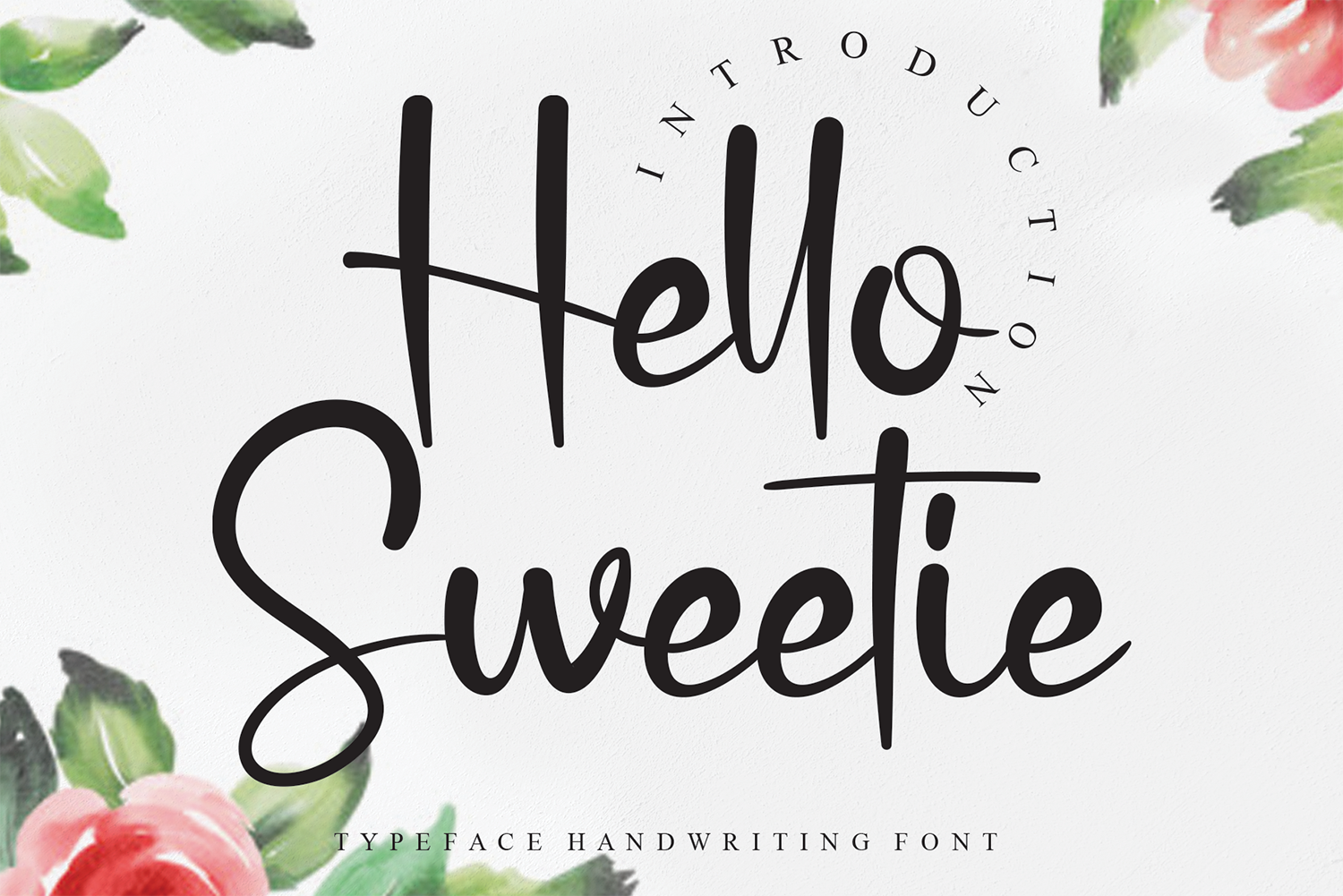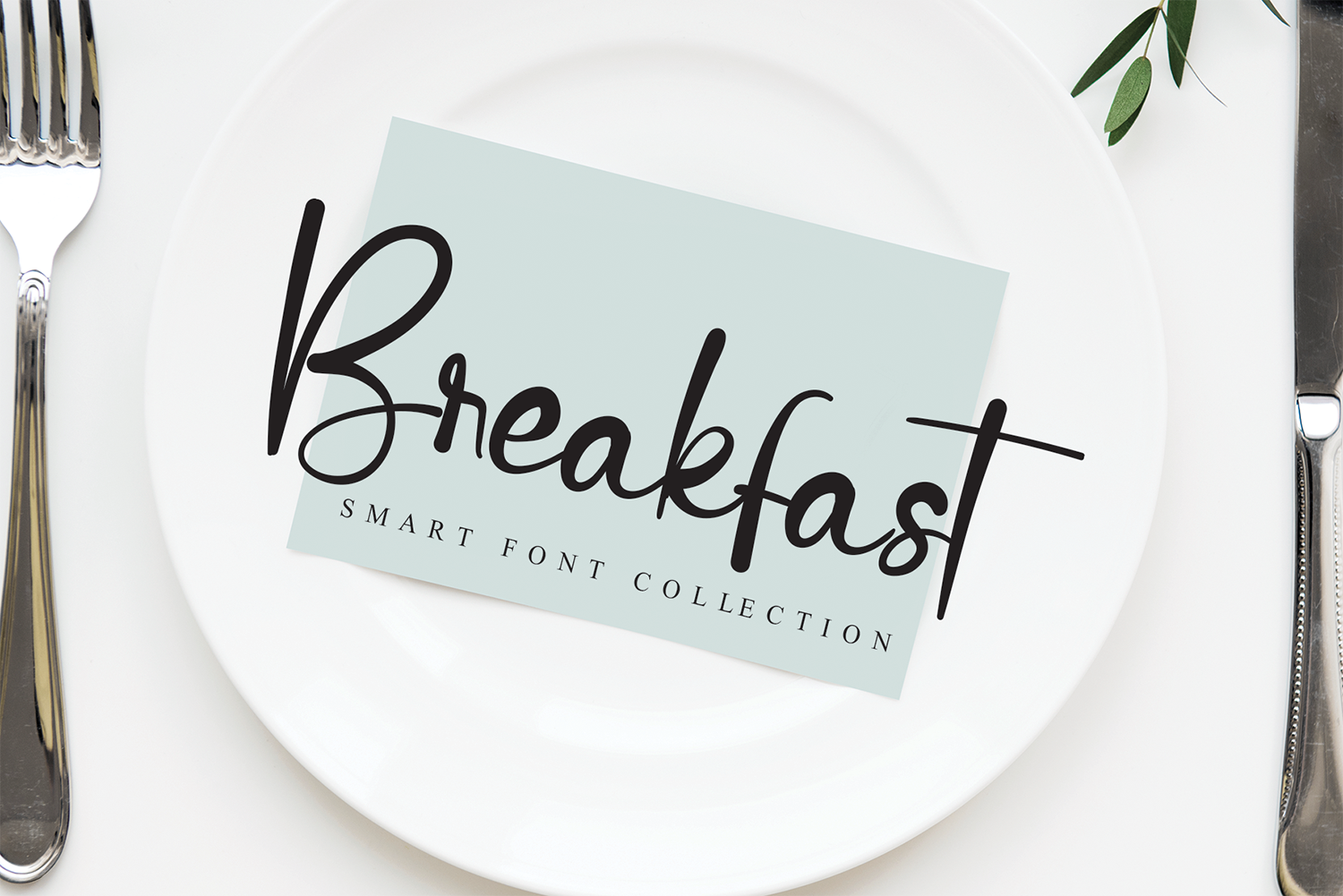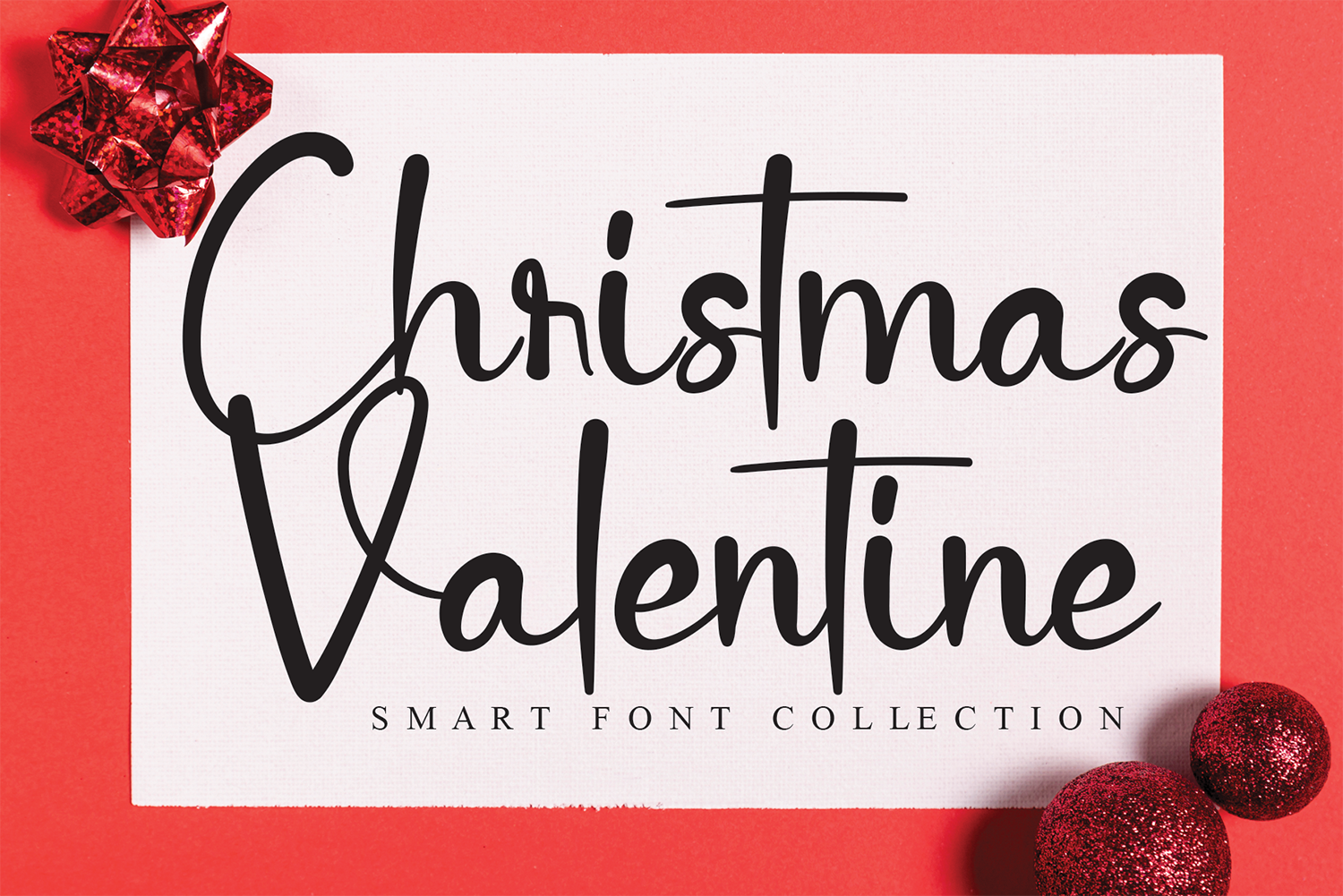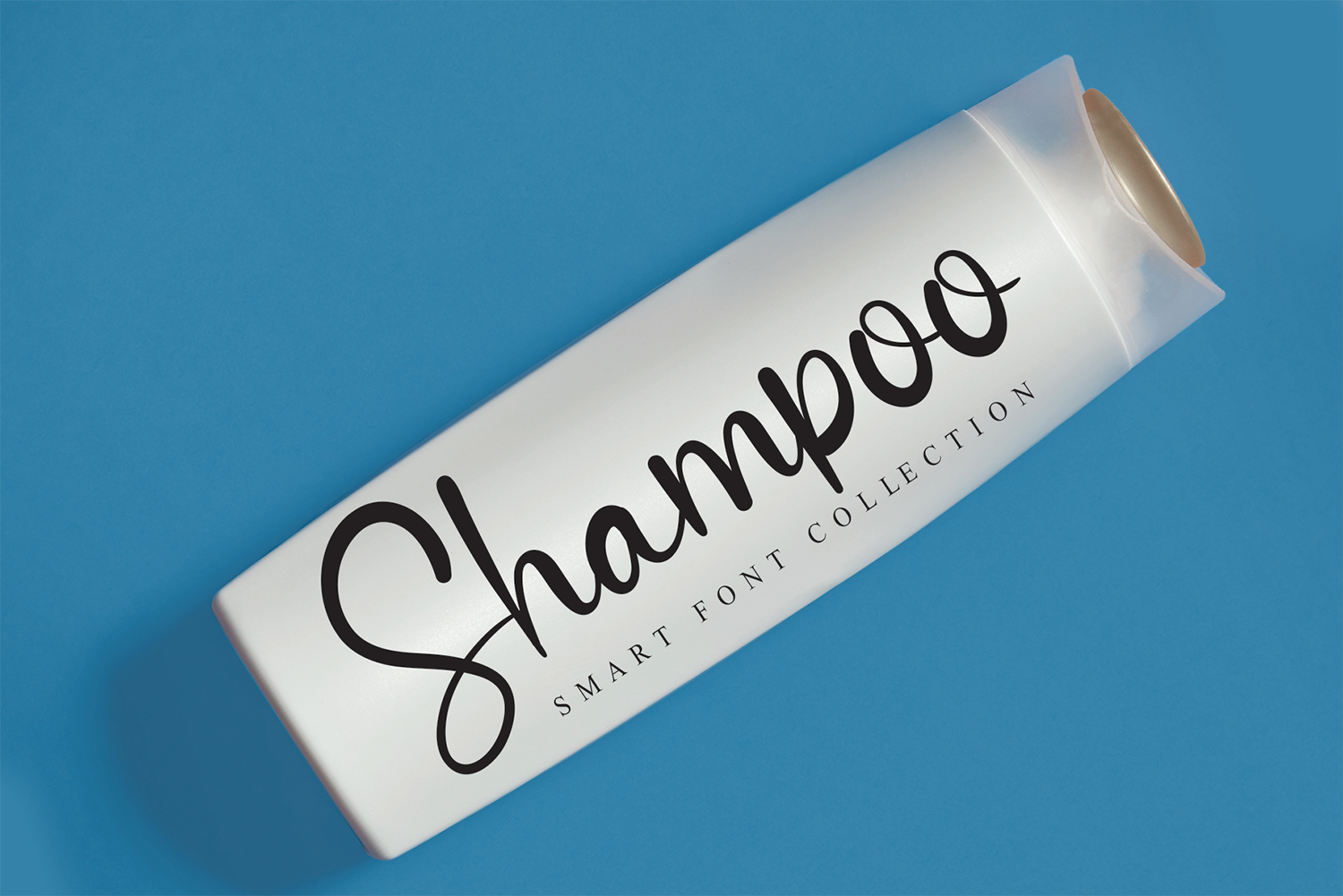
Hello Sweetie Free Font
Welcome to Hello Sweetie Free Font, a refined and graceful handwritten font. The meticulously crafted, rounded letters transform this font into a work of art. Embrace its remarkable versatility and let its charm infuse your designs with splendor. Fall in love with the endless possibilities it offers, as you harness its beauty to craft truly breathtaking creations. This free typeface was designed by a talented Scratchones Creative. If you like it don’t forget to check out the full version.